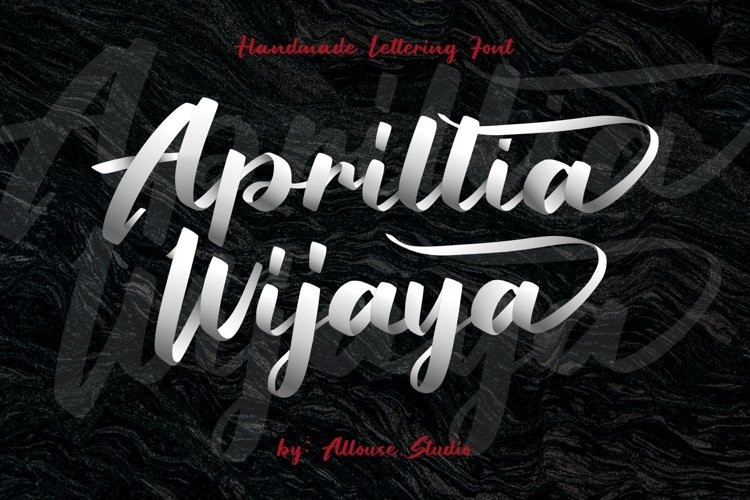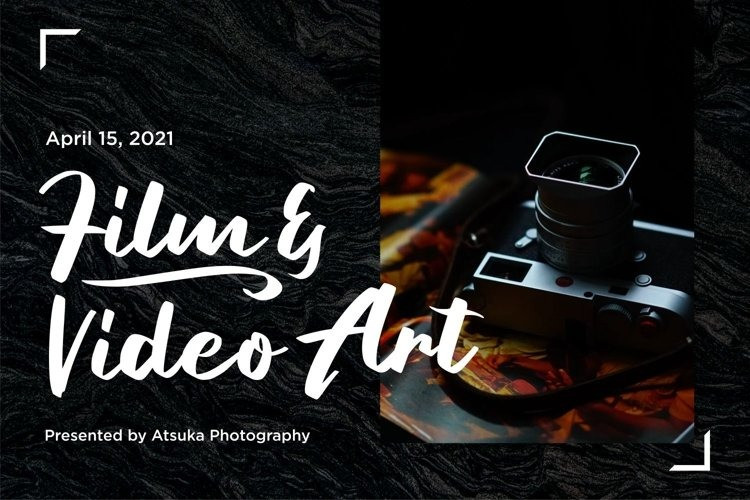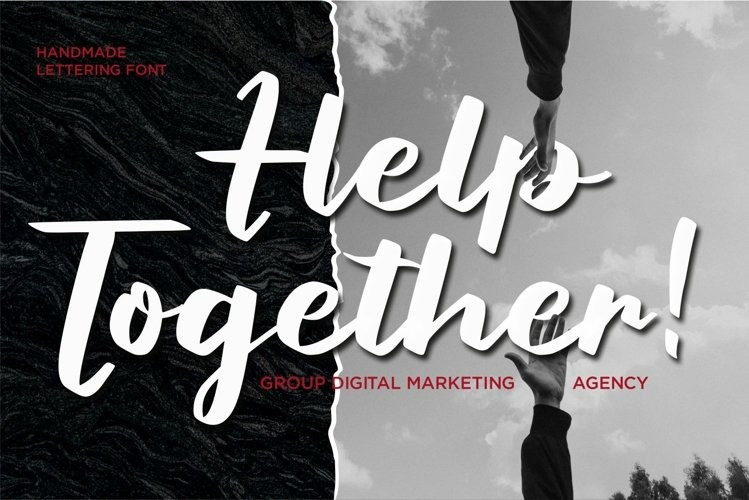
Barttany Script Font
Barttany is a relaxed and elegant handwritten font. Fall in love with its incredibly versatile style and use it to create gorgeous wedding invitations, beautiful stationary art, eye-catching social media posts, and much more!